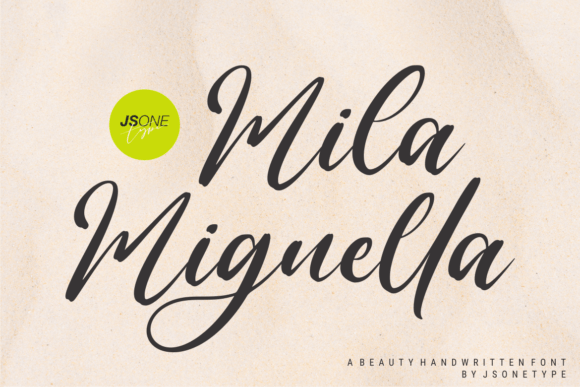
Journey into the world of Mila Miguella, a script font that exudes grace and elegance. Adorn your designs with this enchanting font, perfect for conjuring a romantic and timeless aura. Mila Miguella's delicate strokes and sweeping curves bring a touch of magic to any project.
Immerse yourself in the beauty of Mila Miguella, a handwritten font that enchants with its simplicity and style. Its versatility knows no bounds, flowing effortlessly from heartfelt greeting cards to captivating headlines. Whether you seek to add a touch of whimsy to your invitations, create enchanting branding, or design stunning social media graphics, Mila Miguella is your trusted companion.
With Mila Miguella, you hold the key to unlocking a world of creativity. Its charming personality adds a touch of elegance to wedding invitations, bringing your special day to life. Design breathtaking posters and flyers that capture attention, leaving a lasting impression on your audience. Unleash your imagination and craft mesmerizing logos that embody the essence of your brand.
Mila Miguella is more than just a font; it's an expression of your creativity. Its versatility makes it the perfect choice for a wide range of projects. Discover the boundless possibilities that await you with Mila Miguella. Let your imagination soar and create masterpieces that inspire and captivate.
Enhance your visual storytelling with Mila Miguella, a font that adds a touch of magic to every project. Make a lasting impression on your audience with designs that speak volumes. Step into the world of Mila Miguella today and let your creativity flourish.